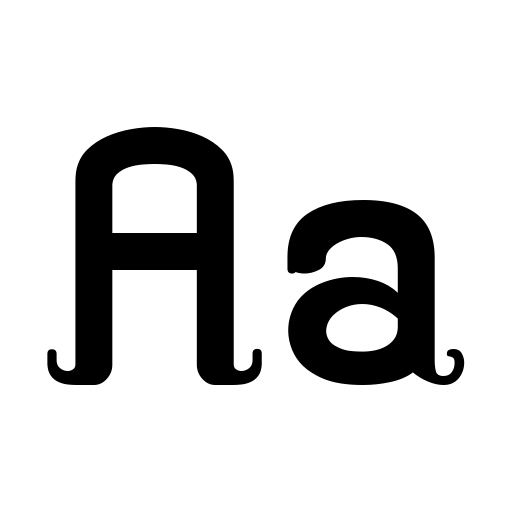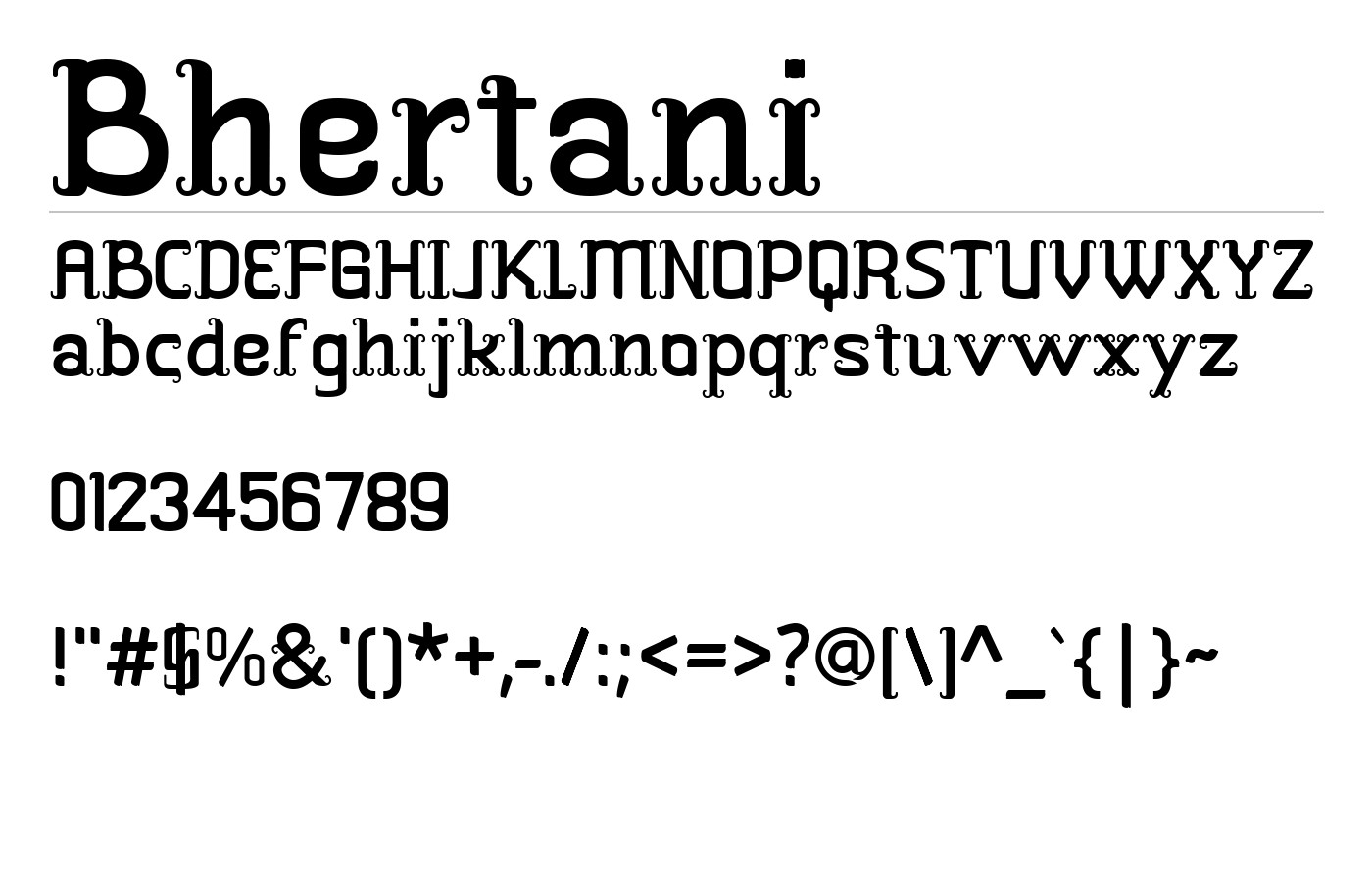
Bhertani is a unique slab serif font with a playful, decorative twist, featuring sturdy letterforms combined with lively curly terminals that add charm and personality. Its medium weight and normal width ensure good readability while the mix of traditional slab serifs and whimsical details make it a great choice for creative headlines, branding, and designs that seek a vintage yet fun and approachable vibe. This font works well in contexts where a blend of structure and flair is desired, such as posters, logos, and editorial projects.
Bhertani Font